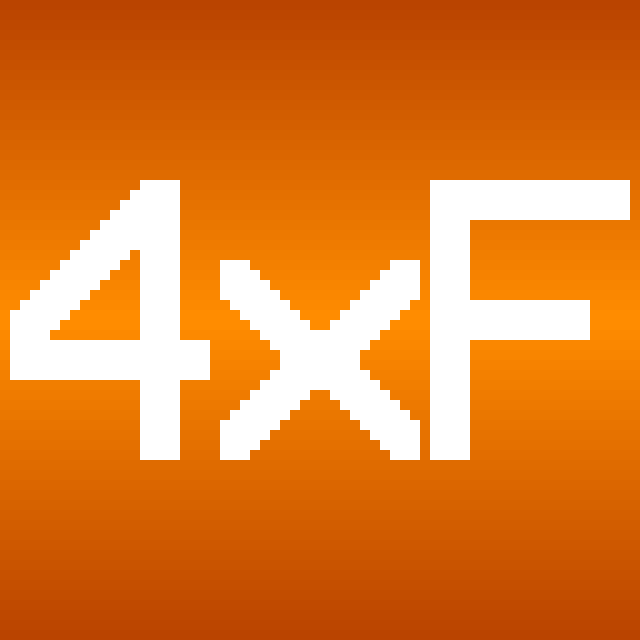
GUI Scale 4 Font
A stylized font for users of GUI Scale 4.
The perfect font for 1440p.
Back when my computer had a 1080p monitor, I made a heavily stylized 3x Font, due to issues with scaling up/down 32x/64x fonts.
In the process of studying Minecraft's font system, I found there were several stylistic choices made in Minecraft's default font (and thereby other vanilla-inspired fonts) that I didn't particularly like, so I took the liberty of changing them when I created 3x Font.
When I recently switched to a 1440p monitor (and thus GUI scale 4) I decided I'd repeat the process for GUI Scale 4. Behold: the 4x Font project.
Comparison with Alternatives
4x Font: (this font)\
VanillaXBR:\
Faithful 64x:\
Geometric Font:\
Progress
As of Version 1, only basic ASCII has been completed. Future versions will include support for accented characters and nonlatin European characters. I also plan to implement the "replace SGA with English characters" modification just for fun.